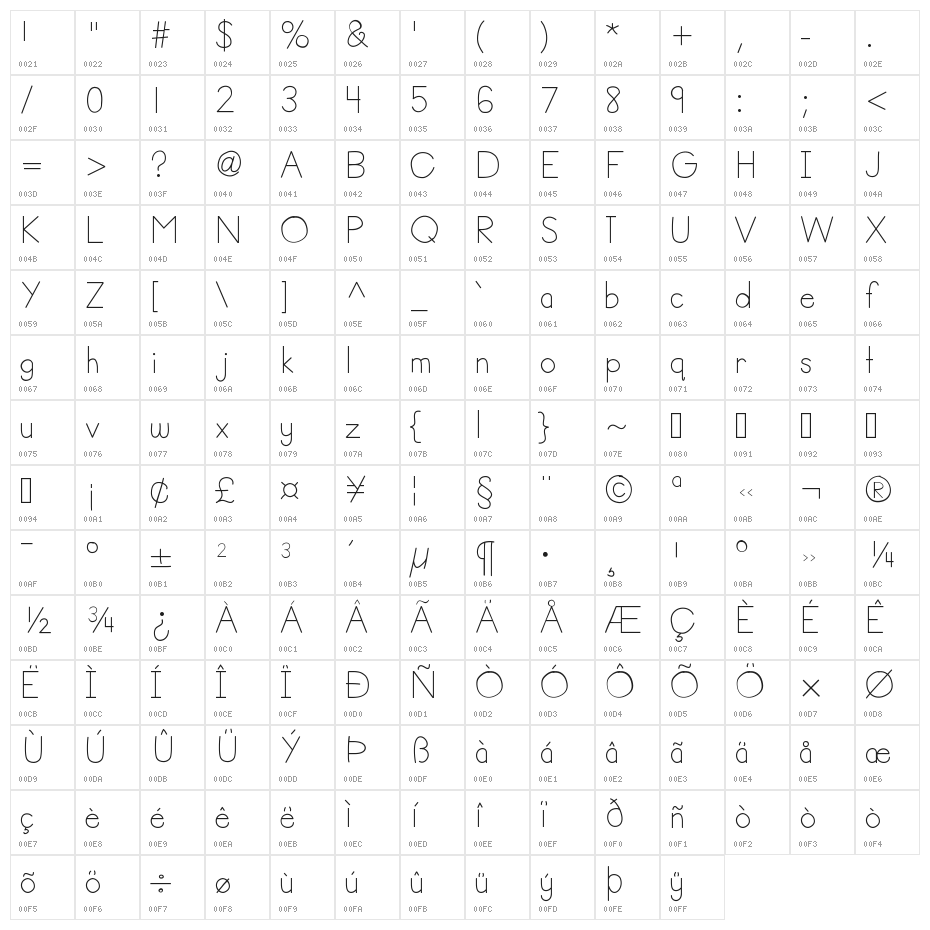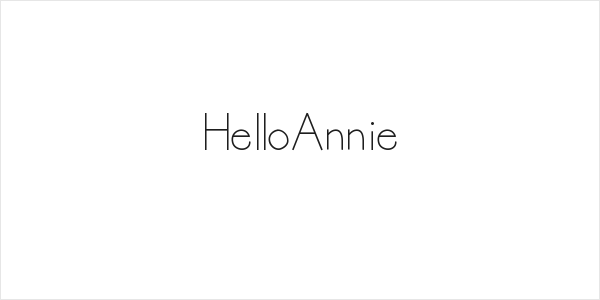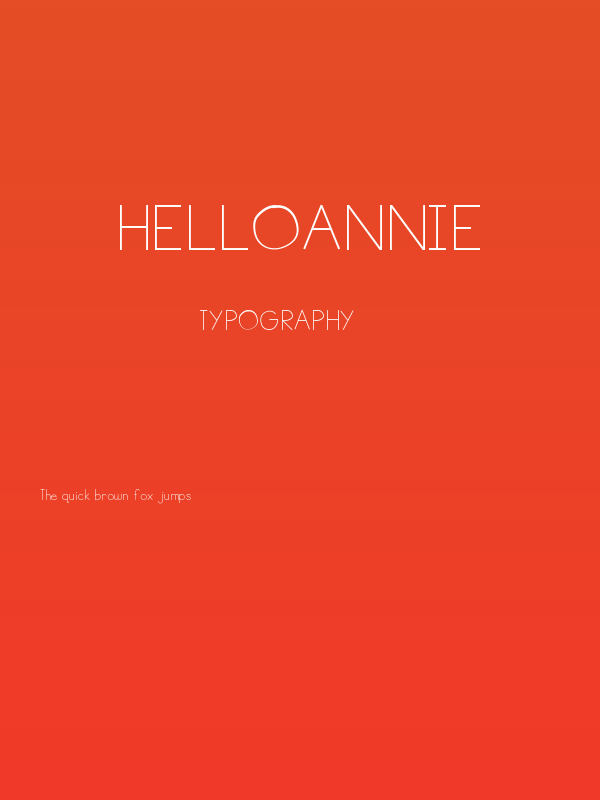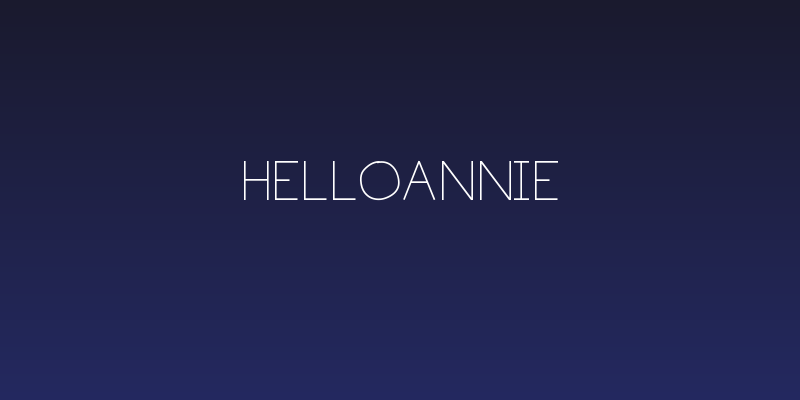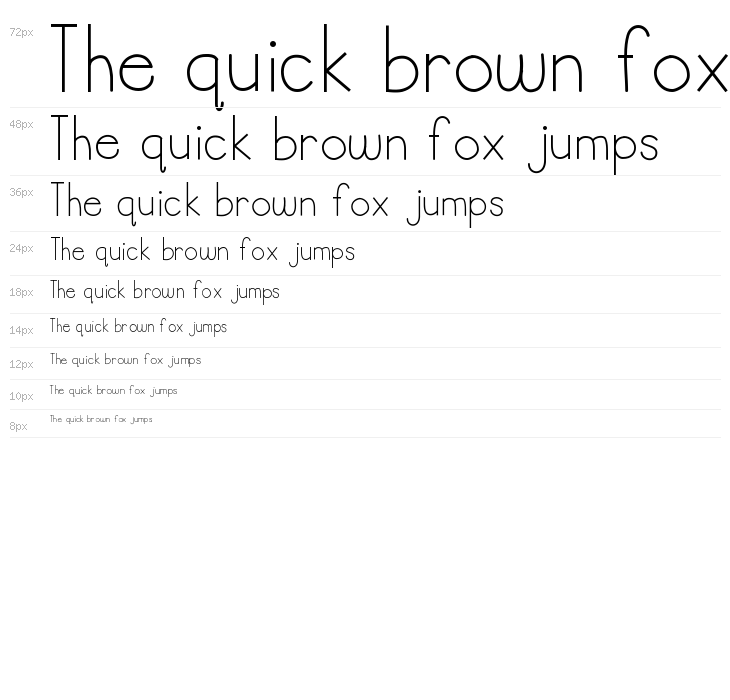
HelloAnnie Font
HelloAnnie Description
This font features a clean and modern aesthetic with a geometric sans-serif style. The characters are evenly spaced and maintain a consistent line weight, contributing to its legibility and simplicity. The uppercase letters are tall and slightly narrow, while the lowercase letters have a rounded and approachable appearance. The numerals are clear and distinct, matching the overall geometric theme. Special characters are well-integrated, maintaining the uniformity of the font. This font is versatile and can be used in various design projects that require a contemporary and minimalistic touch.